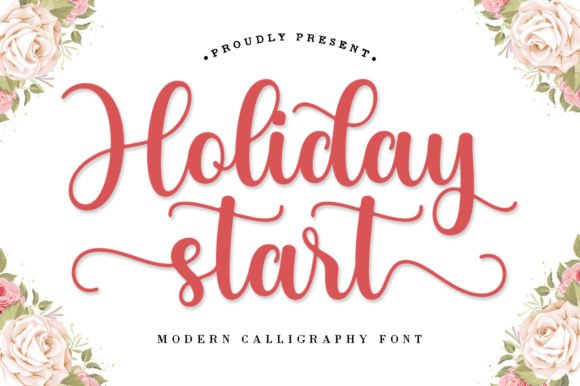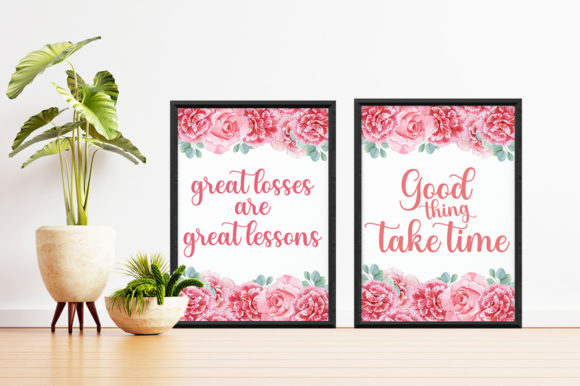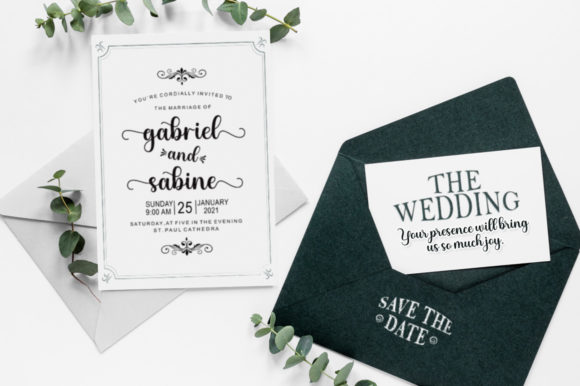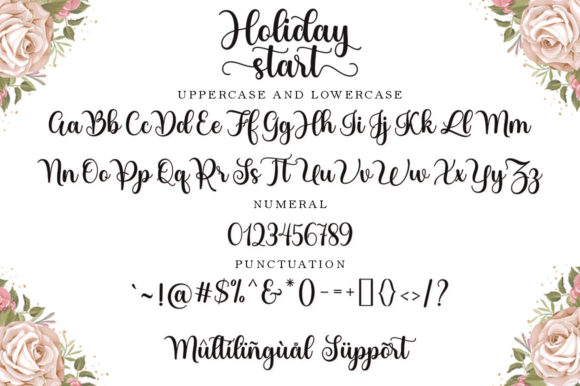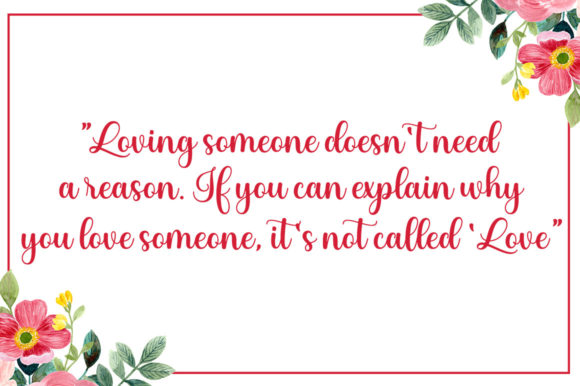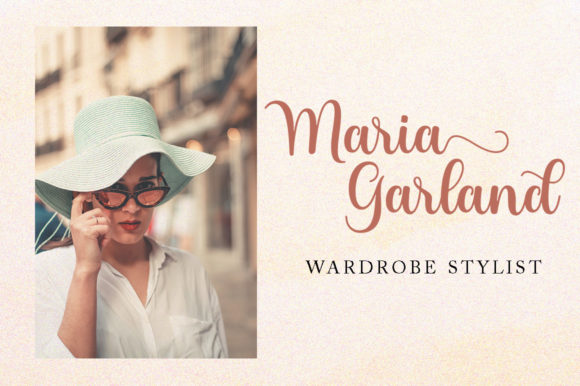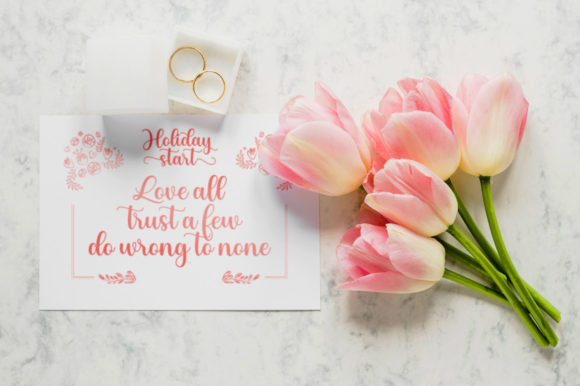
Getting into the Holiday Spirit with the Perfect Font
As the holiday season approaches, I’m reminded of the countless hours spent pouring over design projects, searching for that perfect font to capture the essence of the occasion. And then it hits me – the perfect combination of style and flair that makes my design pop. For me, it’s all about the Holiday Start Font, a spending and sweet calligraphy typeface that brings a touch of magic to any project.
With its unique characters that dance along the baseline, the Holiday Start Font is the perfect addition to any design project. Whether you’re creating a festive holiday card, a special gift tag, or a seasonal social media post, this font is sure to add a stylish spark. And with its PUA encoding, accessing all of the amazing glyphs and ligatures is a breeze, making it a valuable asset for designers looking to elevate their work.
Holiday Start Font Key Features
- Font Family: Holiday Start is a display font with a festive and playful feel, ideal for holiday and seasonal designs.
- Character Count: The font family includes 160 characters, including uppercase and lowercase letters, numbers, and punctuation marks.
- Unique Characteristics: The font features a bold, cursive design with a mix of modern and vintage elements, giving it a unique and eye-catching look that’s perfect for holiday-themed designs.
Designer Review: Holiday Start Font
Overall, I think Holiday Start Font is a solid choice for any holiday-themed project, but it has its strengths and weaknesses.
- Warm and Festive Vibes: The font exudes a cozy, festive atmosphere that’s perfect for Christmas, New Year’s, or any other holiday project.
- Wide Character Set: The font includes a wide range of characters, from uppercase and lowercase letters to numbers, punctuation, and symbols.
- Easy to Read: Despite its playful design, the font is still easy to read, even at smaller font sizes.
- Limited Font Weight Options: The font only comes in two weights, making it less versatile than some other fonts.
- No Italic or Oblique Styles: If you need to create emphasis or create a specific mood with italic or oblique text, you’ll be out of luck.
- Not Suitable for Large Bodies of Text: While the font is great for headlines and titles, it may become overwhelming when used for large blocks of text.
Holiday Start Font is a charming and festive font that’s perfect for holiday projects, but it may not be the best choice for more complex designs or projects that require a wide range of font weights and styles.
Tips for Getting the Most Out of Holiday Start Font
For the best results, use Holiday Start Font in conjunction with festive colors and graphics. Experiment with different font sizes and styles to add emphasis to your text.
Holiday Start Font is ideal for use in holiday-themed designs, such as Christmas cards, New Year’s invitations, and Valentine’s Day posters. It’s also suitable for use in branding and marketing materials for businesses in the holiday industry.